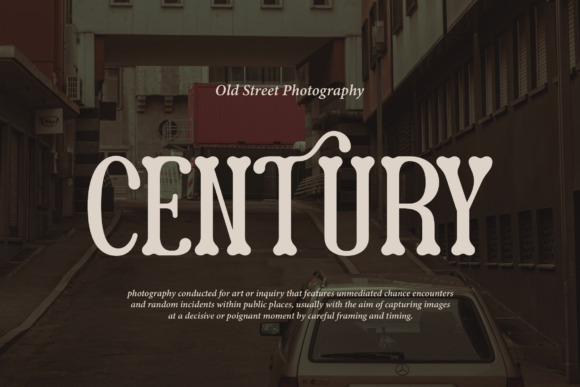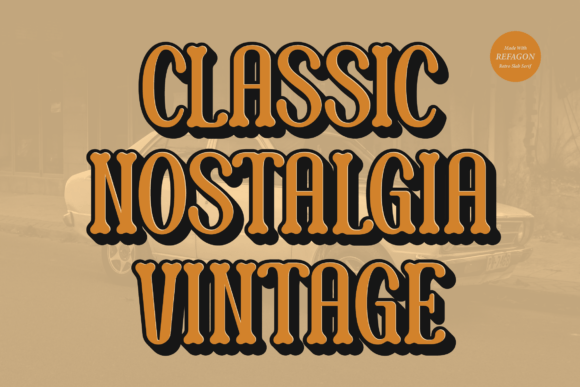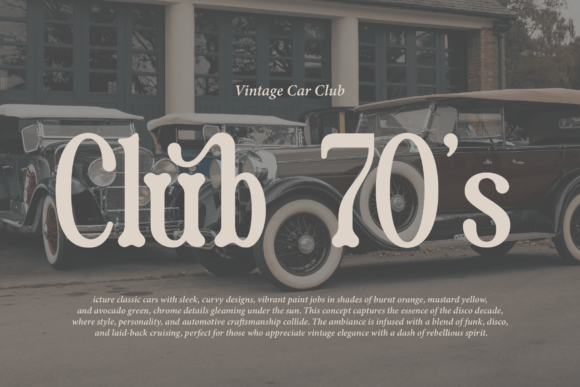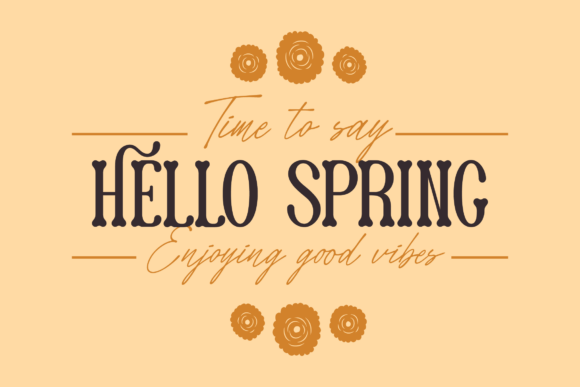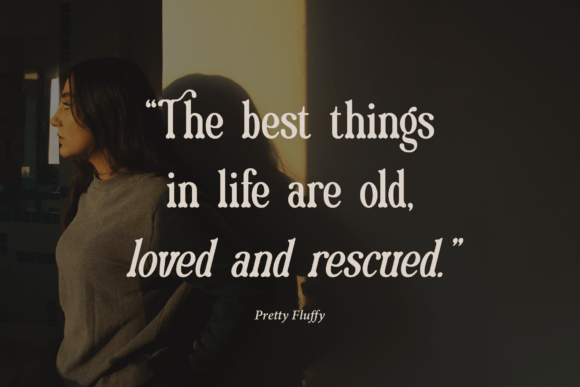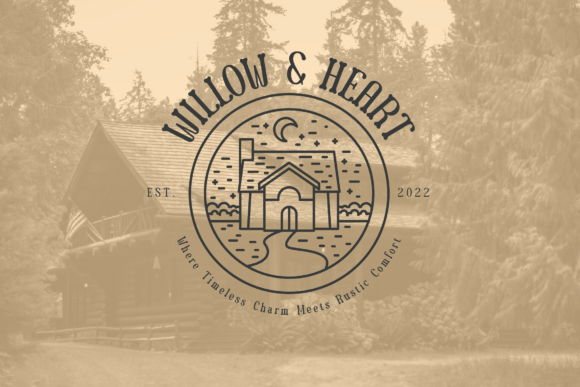
Introduction to Refagon Font
Refagon is a retro slab serif font that combines a vintage feel with modern readability.
Its thick, bold letters have squared edges, giving it a strong and friendly look Perfect for headlines and posters, Refagon adds a touch of nostalgia while remaining easy to read.